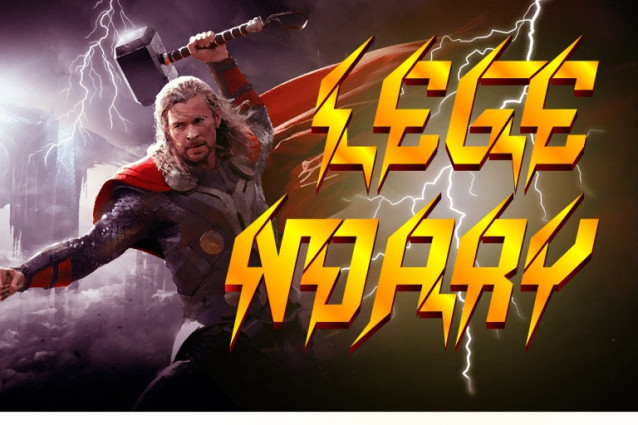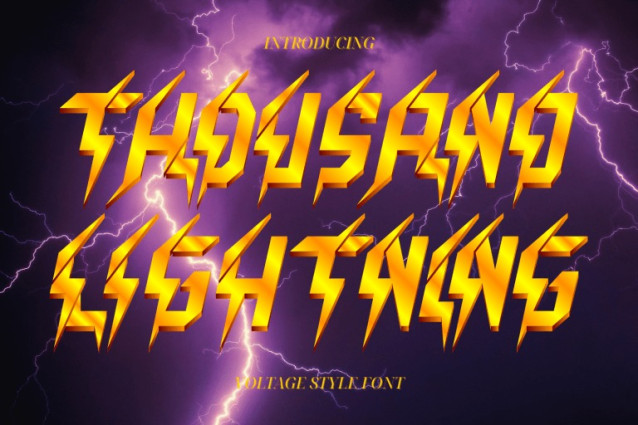
Thousand Lightning Font
Thousand Lightning Font is a bold and electrifying display typeface inspired by lightning strikes and heavy metal aesthetics. With its sharp angular cuts and jagged edges, each letter looks like it’s been forged from pure thunder, radiating energy and raw power. The golden 3D metallic effect amplifies its dramatic and striking presence, making it an instant attention-grabber. Perfect for posters, album covers, esports logos, movie titles, or any project that needs intensity and impact, this font combines futuristic aggression with an unmistakable rock attitude.
✨ Font Features:
✔ Uppercase Letters
✔ 100+ Unique Lightning Ligatures
✔ Numerals & Punctuation
✔ Accented Characters for Multilingual Support
✨ About 100 ligatures combined with Stylistic Alternates Font:
AC AD AL AN AR AS AT AU AV BE CA CE CH CO CT DE DI EA EC ED EE EL EM EN EP ER ES ET FE FO FR GE HA HE HI HO IE IC IL IN IO IR IS IT JU KE LA LE LI LL LO LY MA ME MI NC ND NE NG NO NT NS OC OF OM ON OO OP OR OT OU OW PA PR RA RD RE RI RO RS RT SE SH SI SO SS ST TA TE TH TI TO TR TT UM UN UR VE WI WO